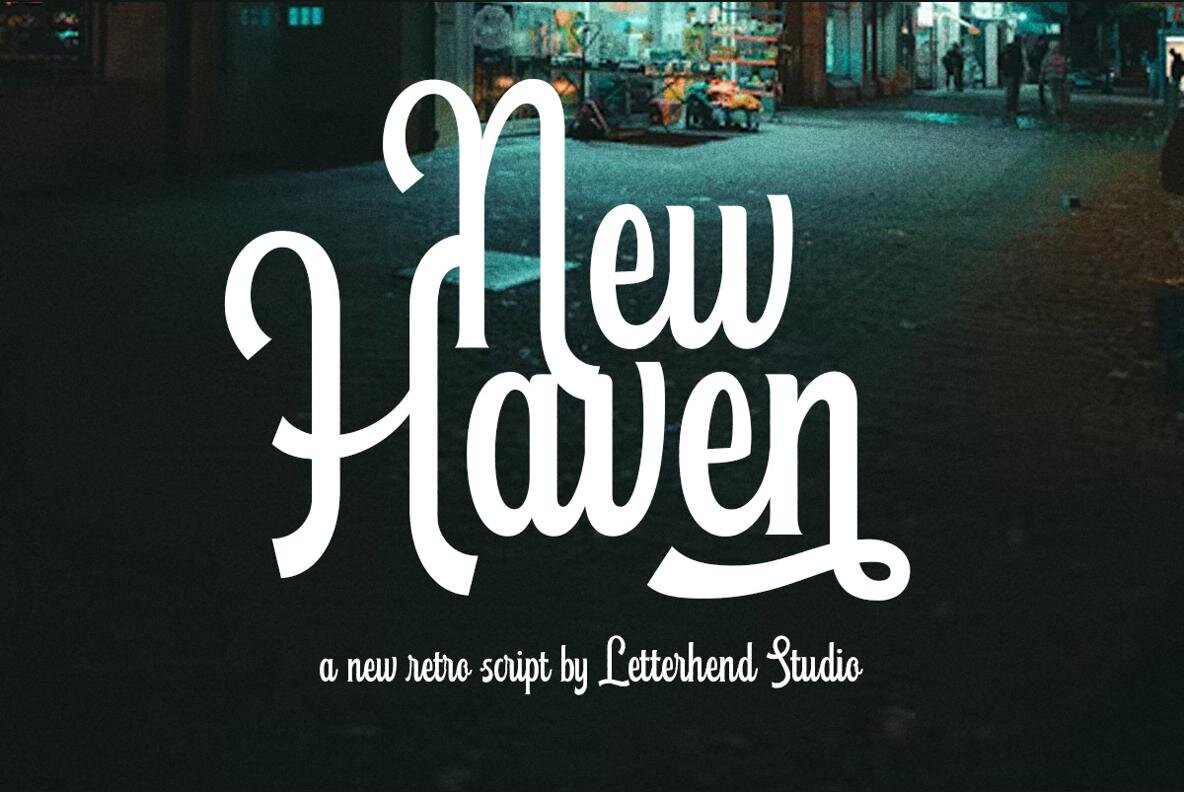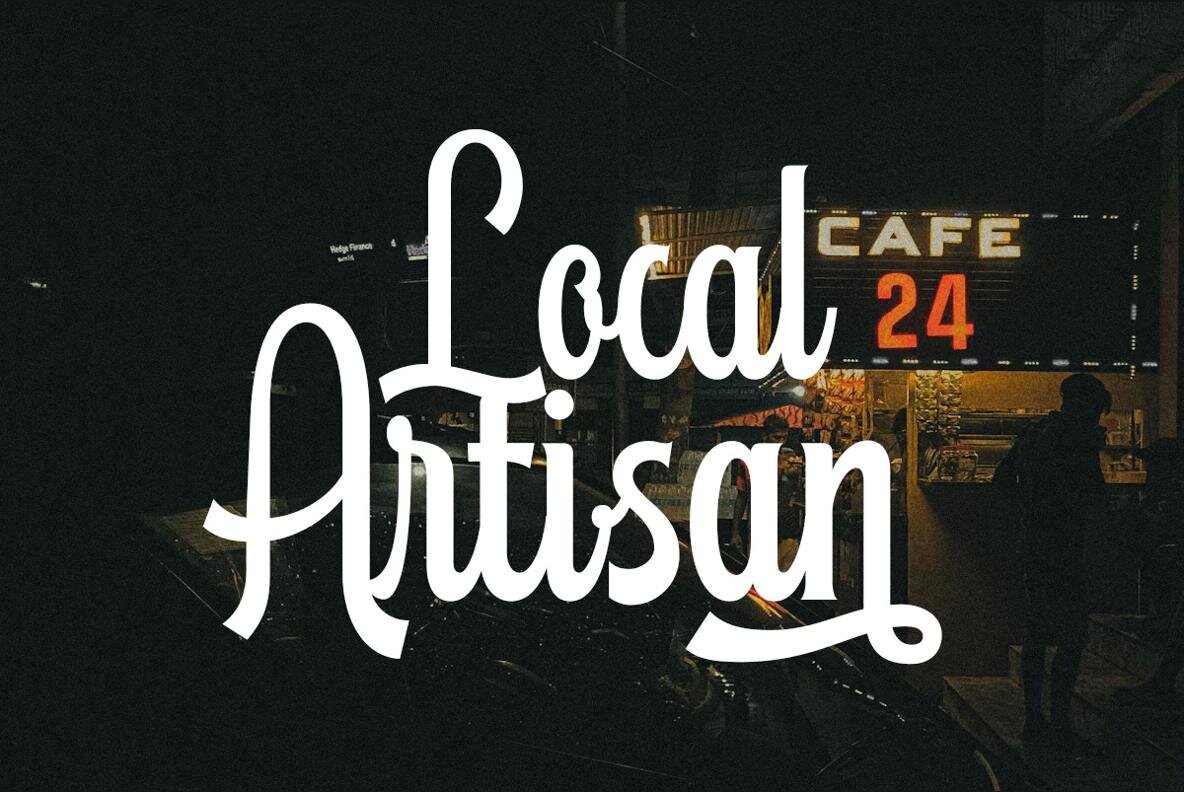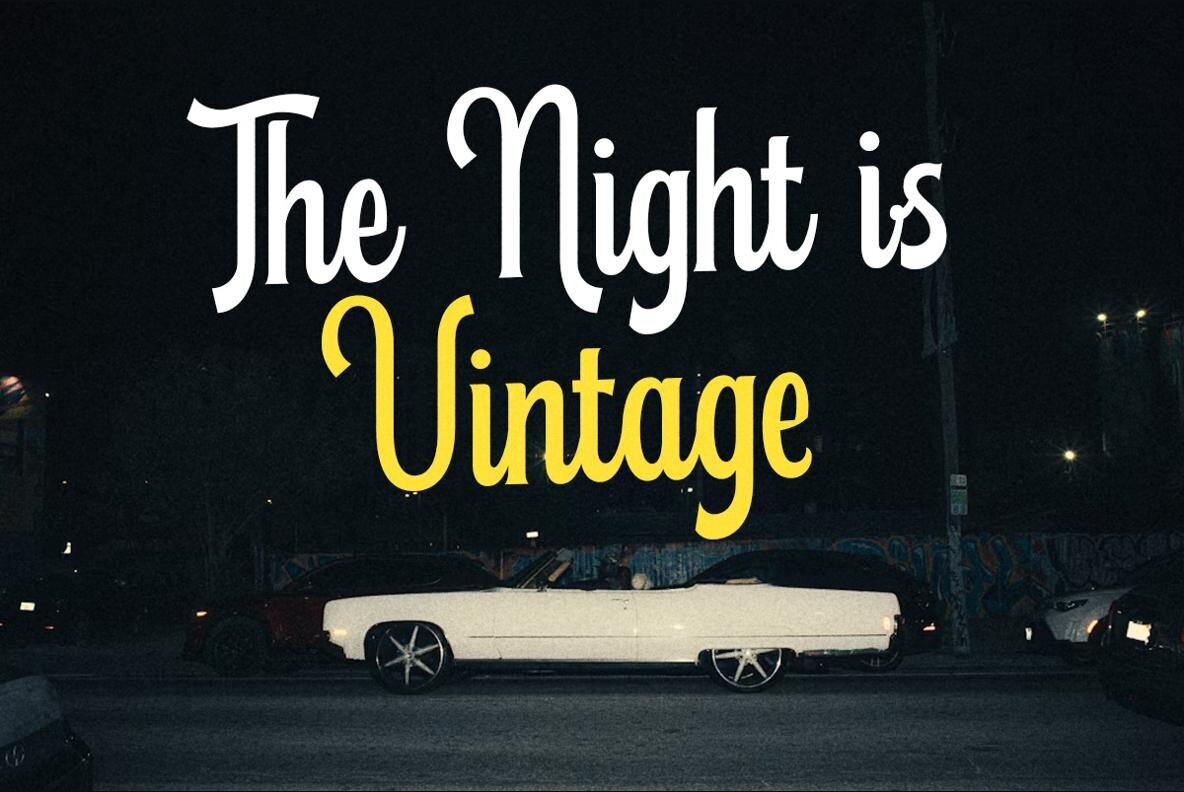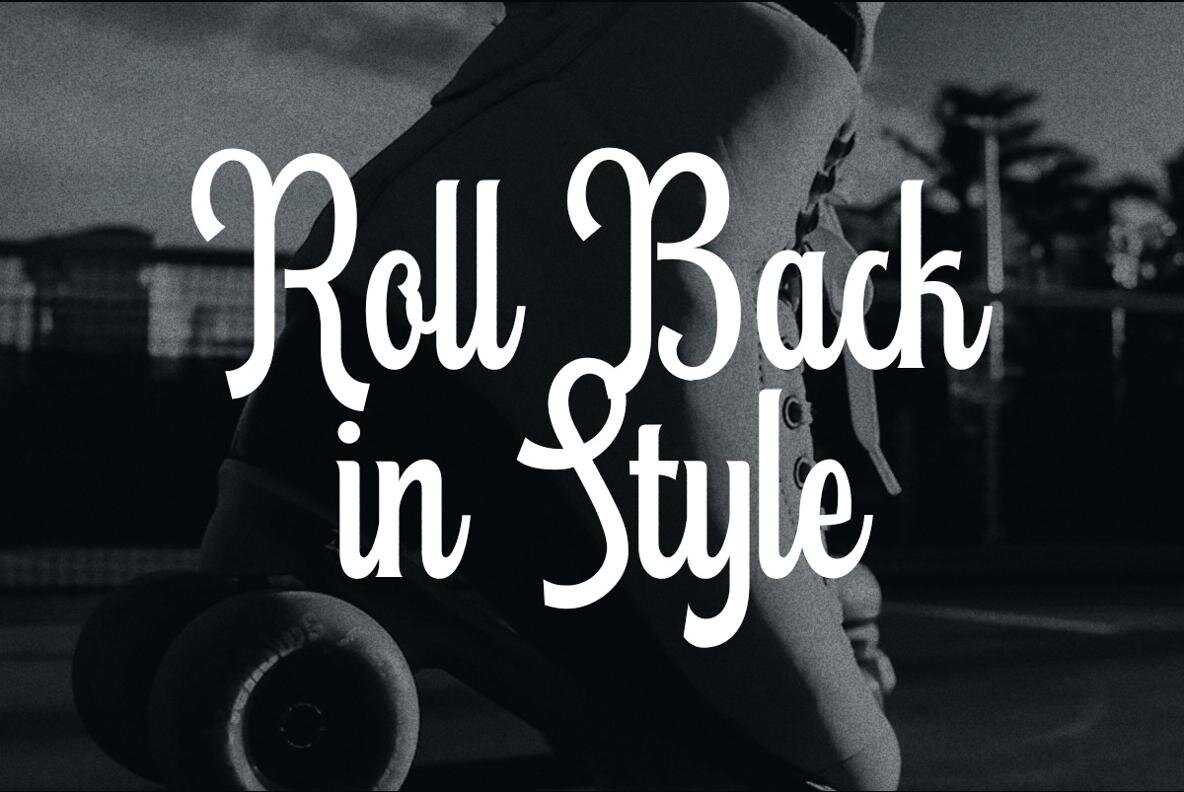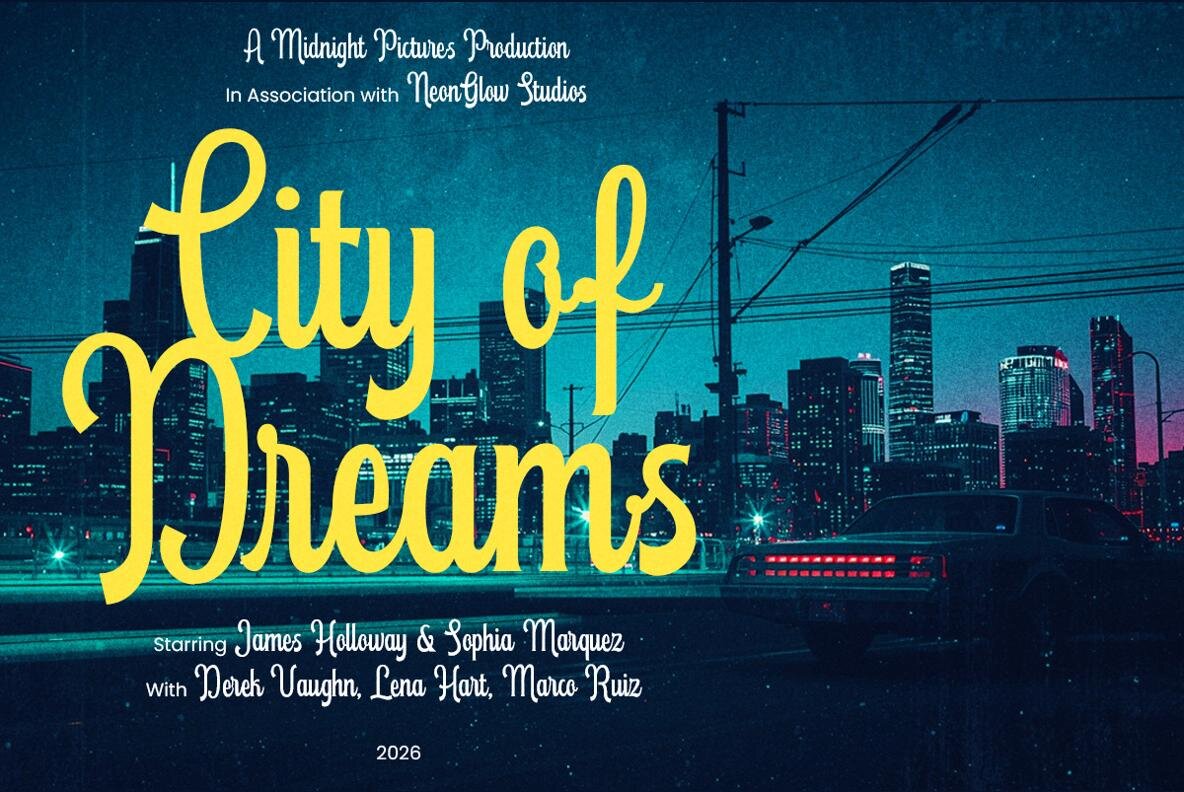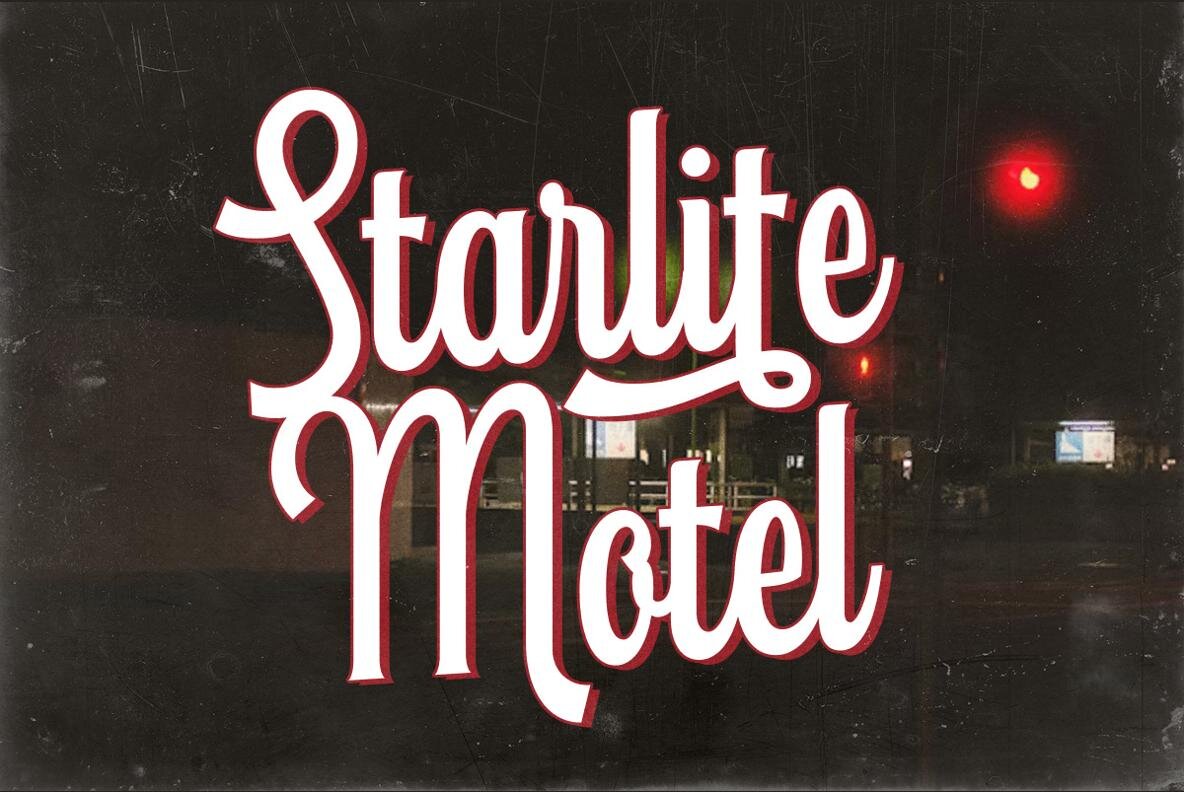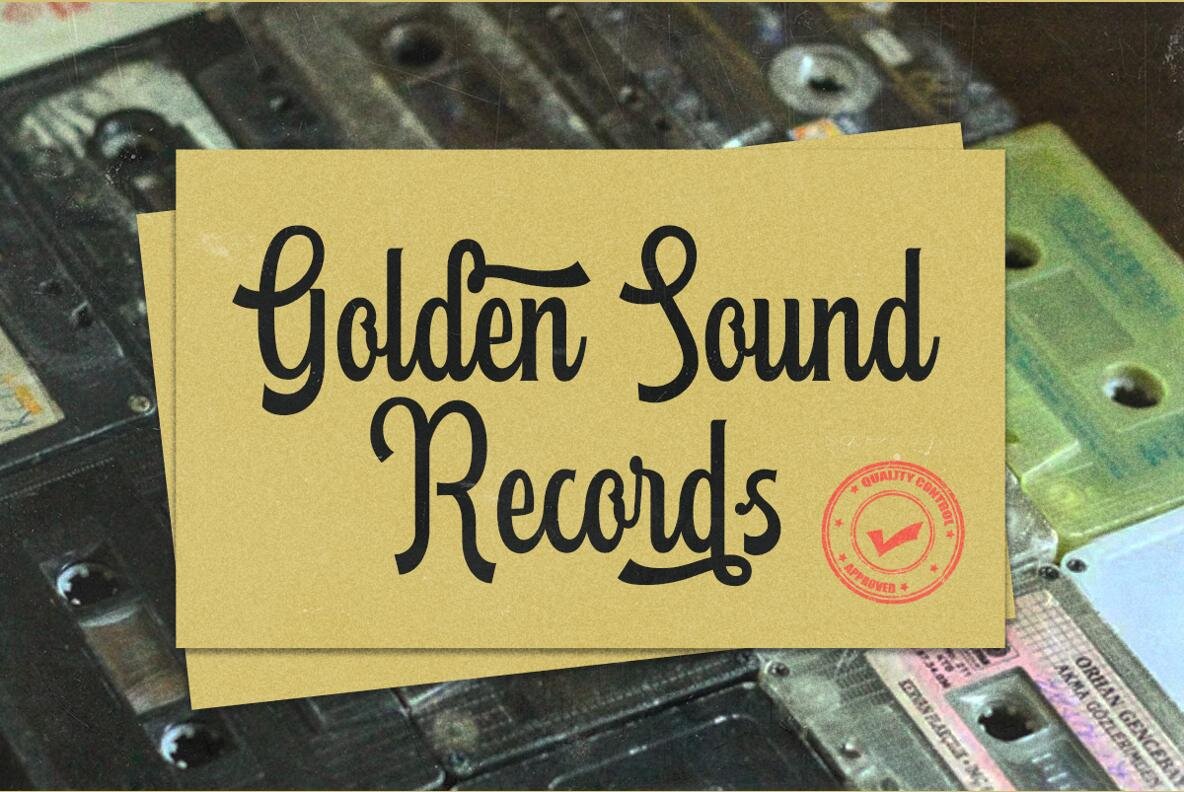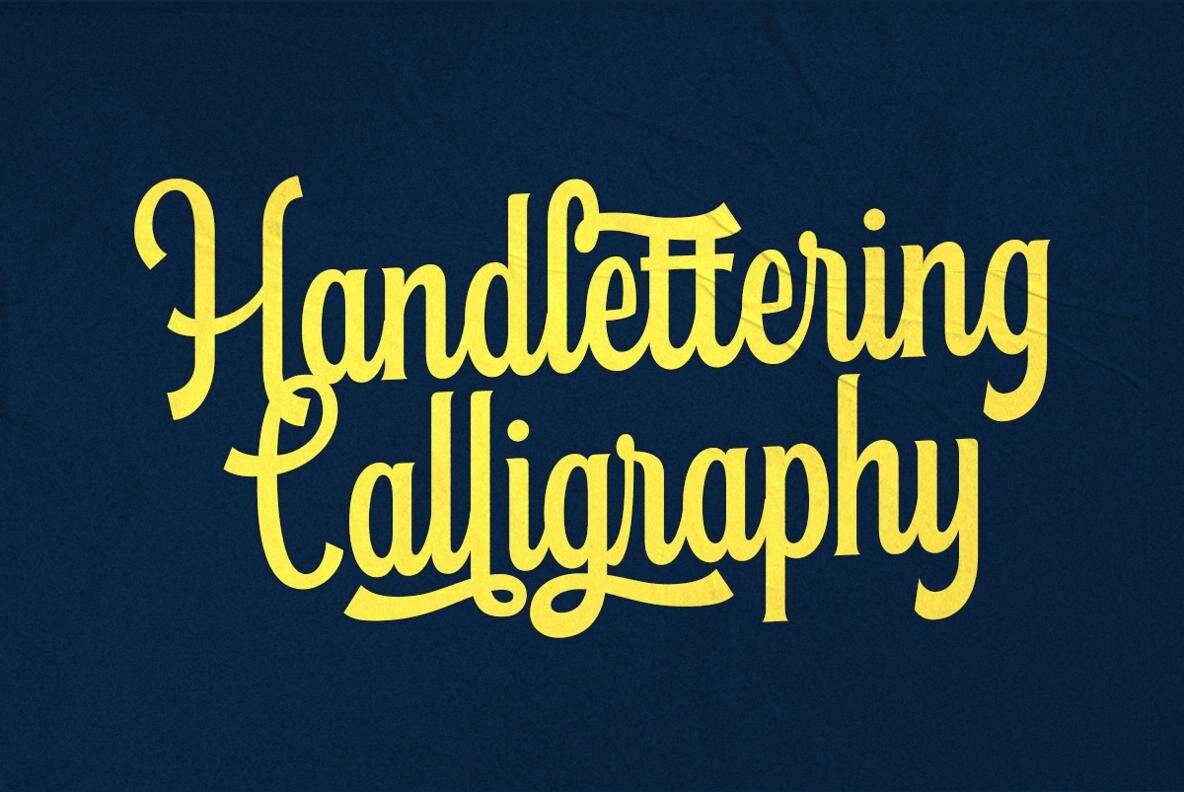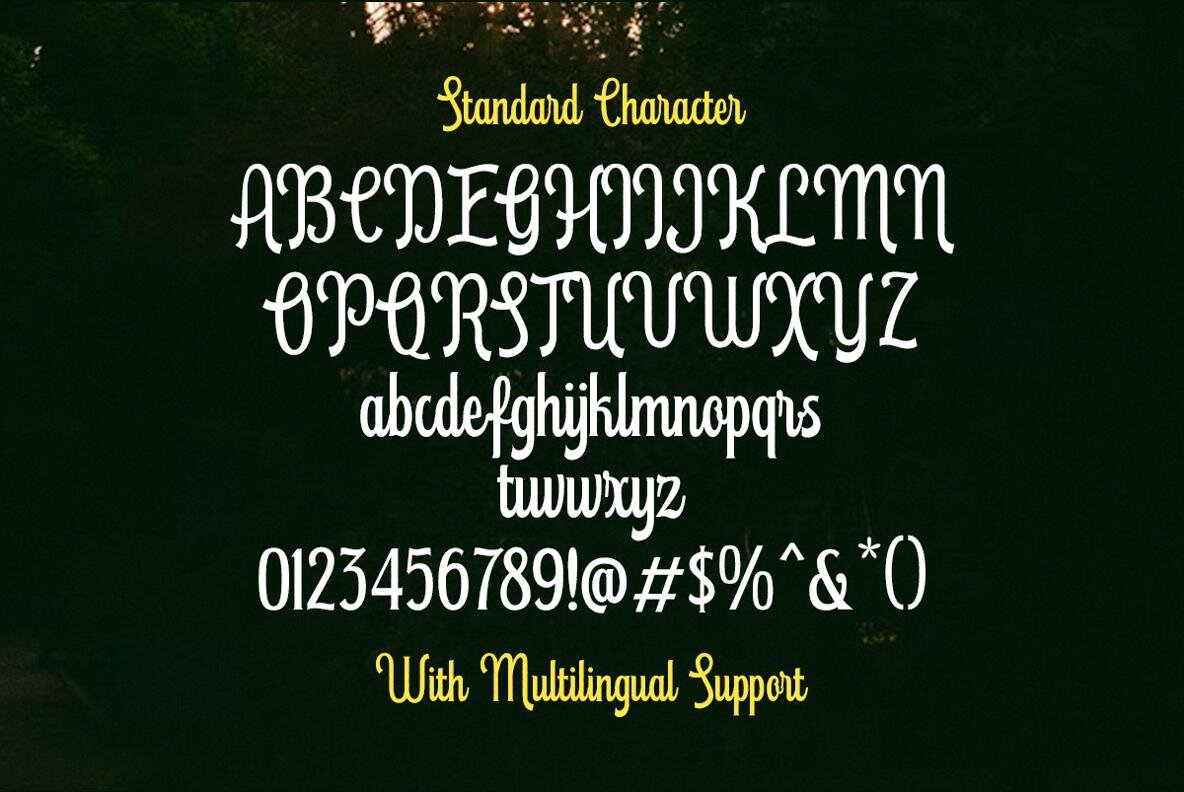
New Haven Font
New Haven
New Haven offers a bold blend of vintage charm and modern flair, making it perfect for diverse design projects. This retro script font features smooth curves and stylish swashes, exuding confidence and timelessness. Ideal for logos, posters, signage, branding, and packaging, New Haven's strong character and nostalgic vibe bring a touch of classic Americana. Enhance your design work by accessing all glyph variations. For the best experience, use a program that supports OpenType features and Glyphs panels, such as Adobe apps or Corel Draw. With New Haven, every headline or wordmark becomes instantly iconic and memorable.New Haven: A Retro Script with Modern Versatility